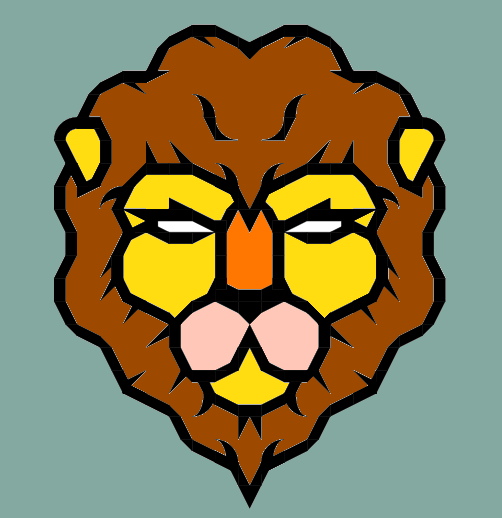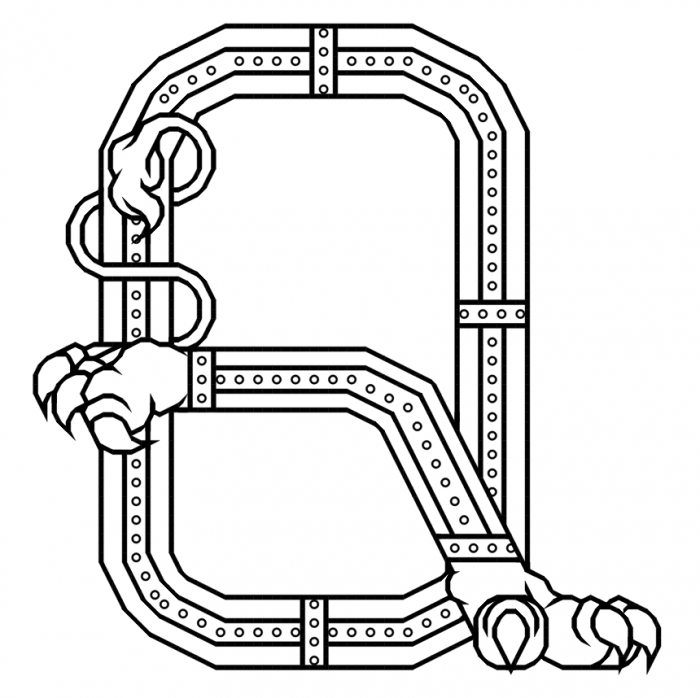
An instant classic. Well done, congratulations!
Waiting for the numbers and others. 11/10.
wow, so intricate and beautiful!
Congratulations! FontStruct Staff have deemed your FontStruction worthy of special mention. “Lione Royale” is now a Top Pick.
I encourage everyone to zoom in on this one.